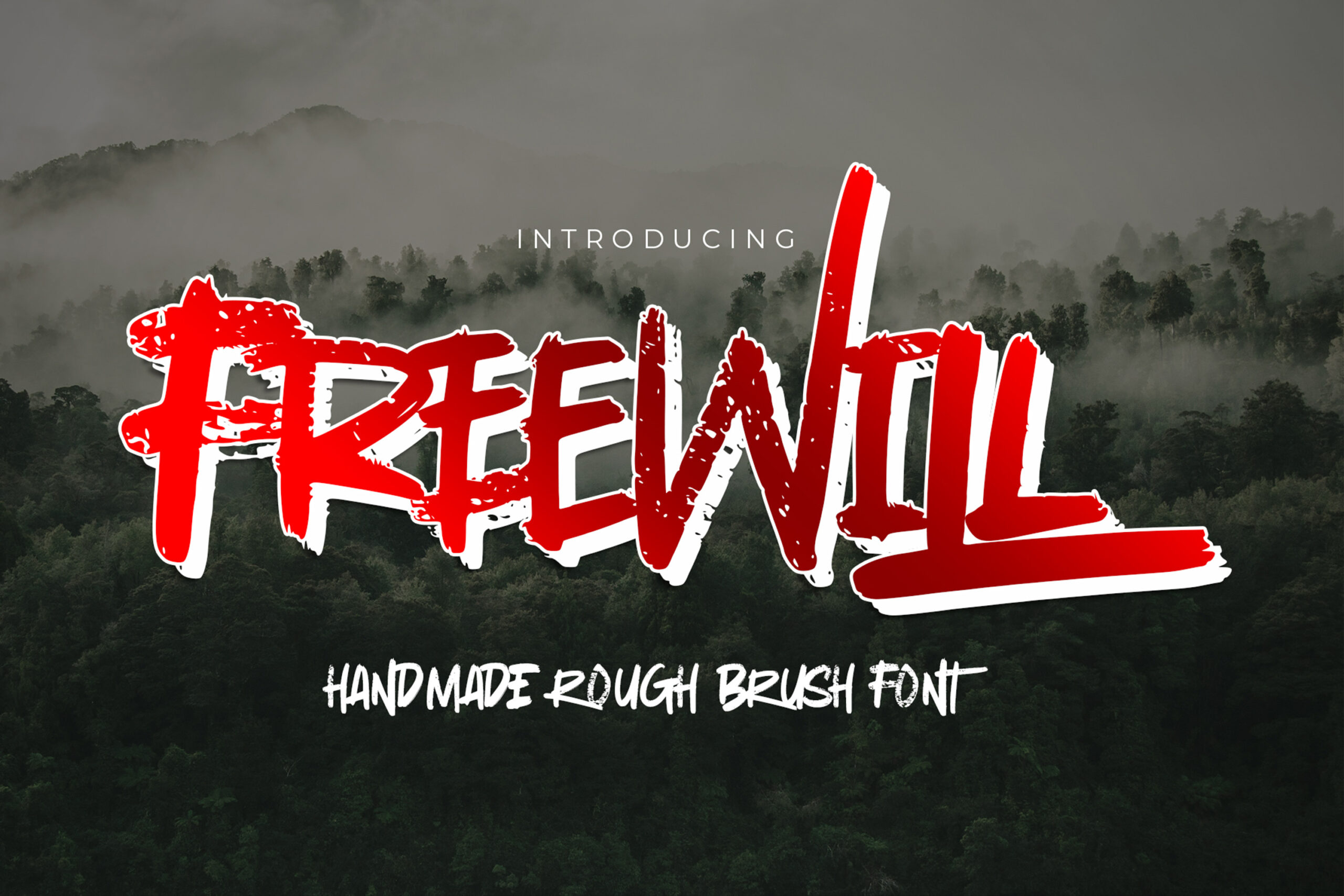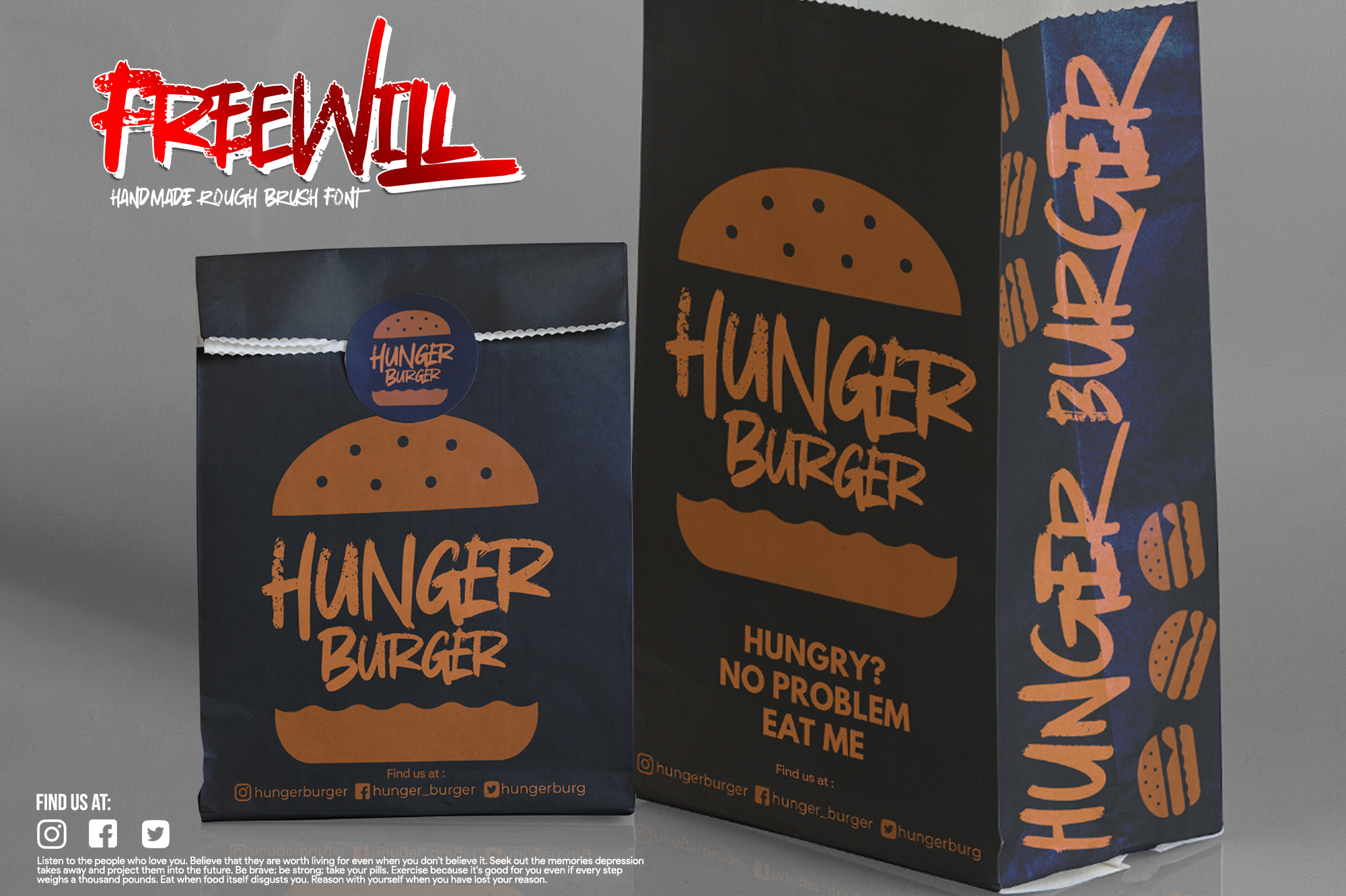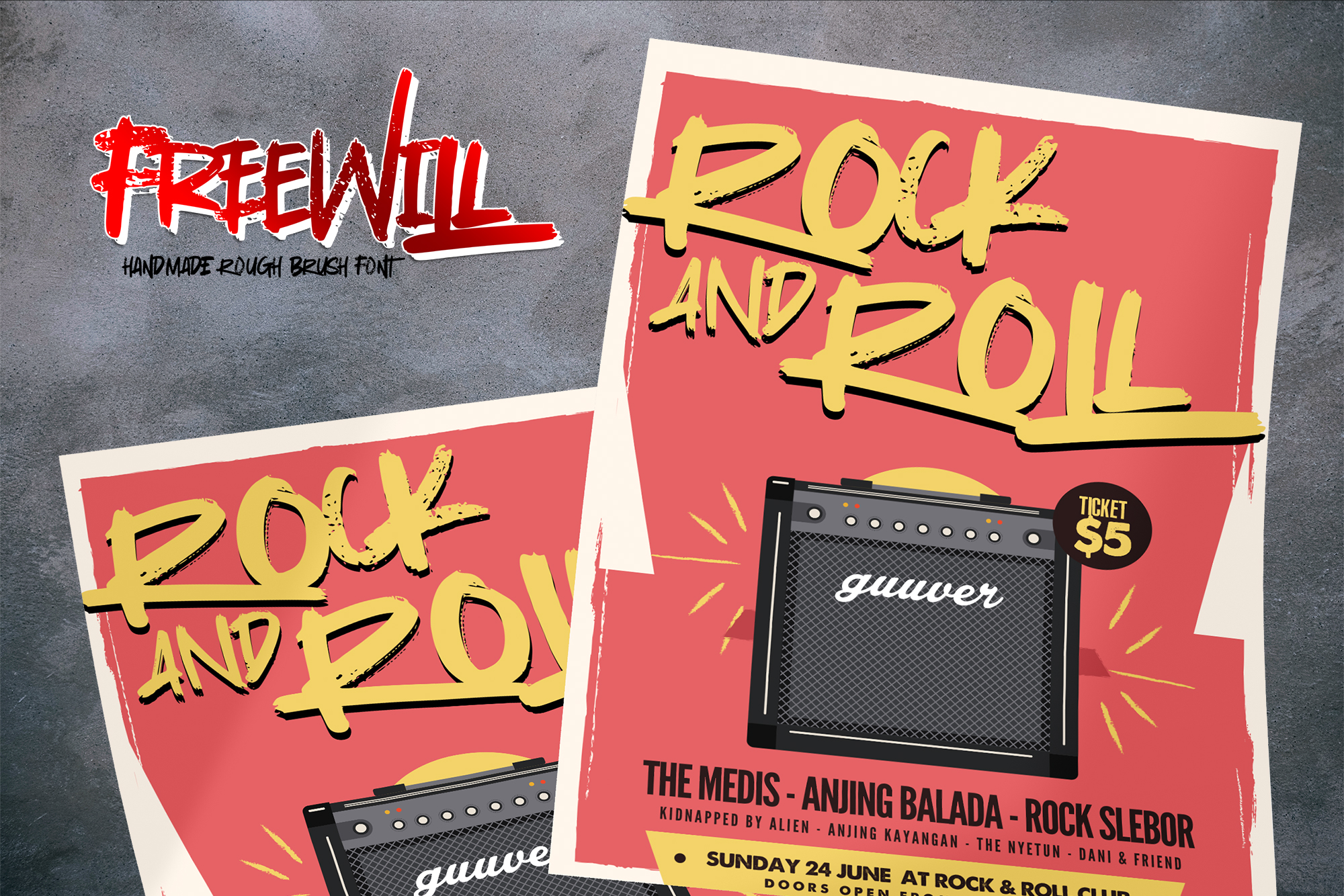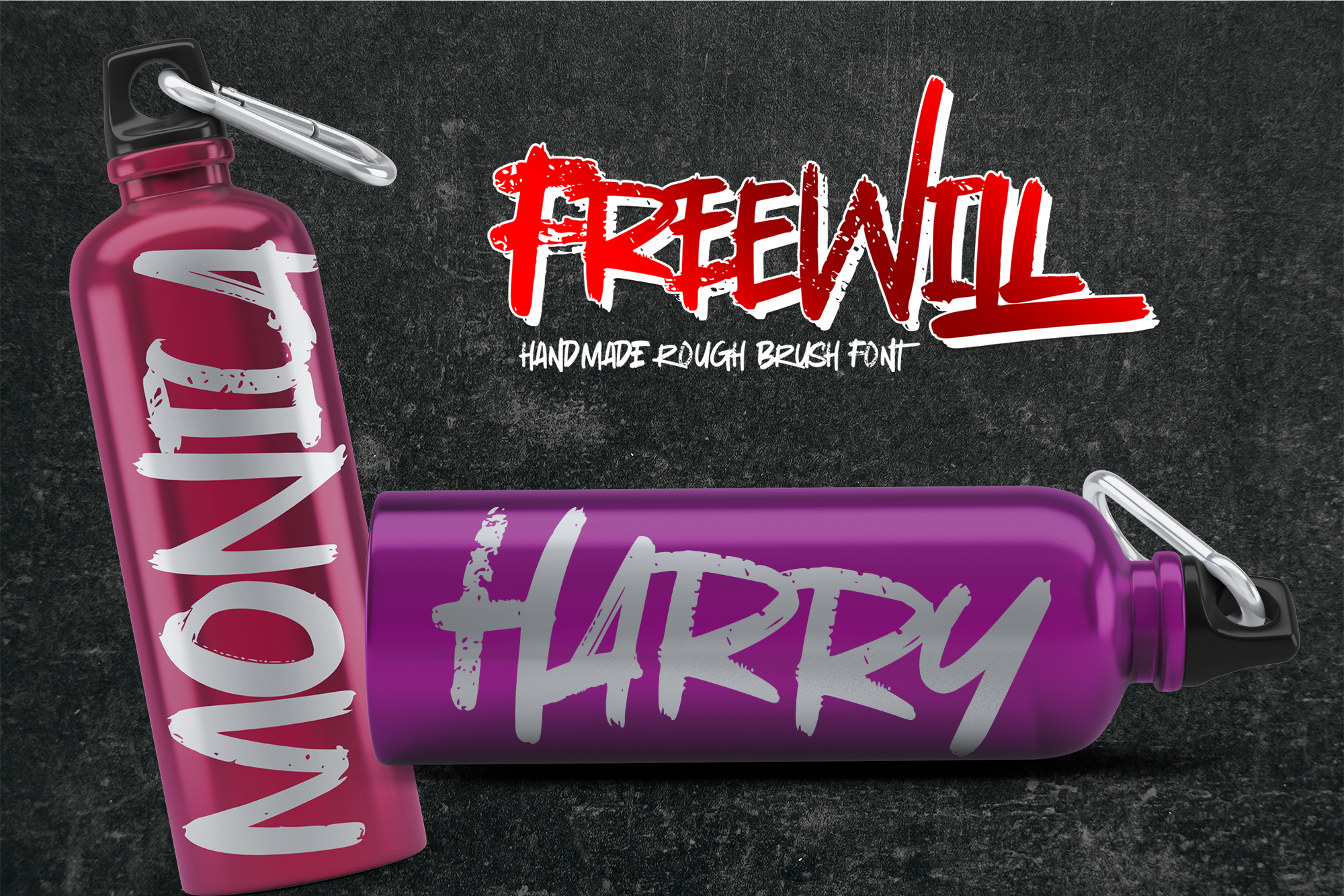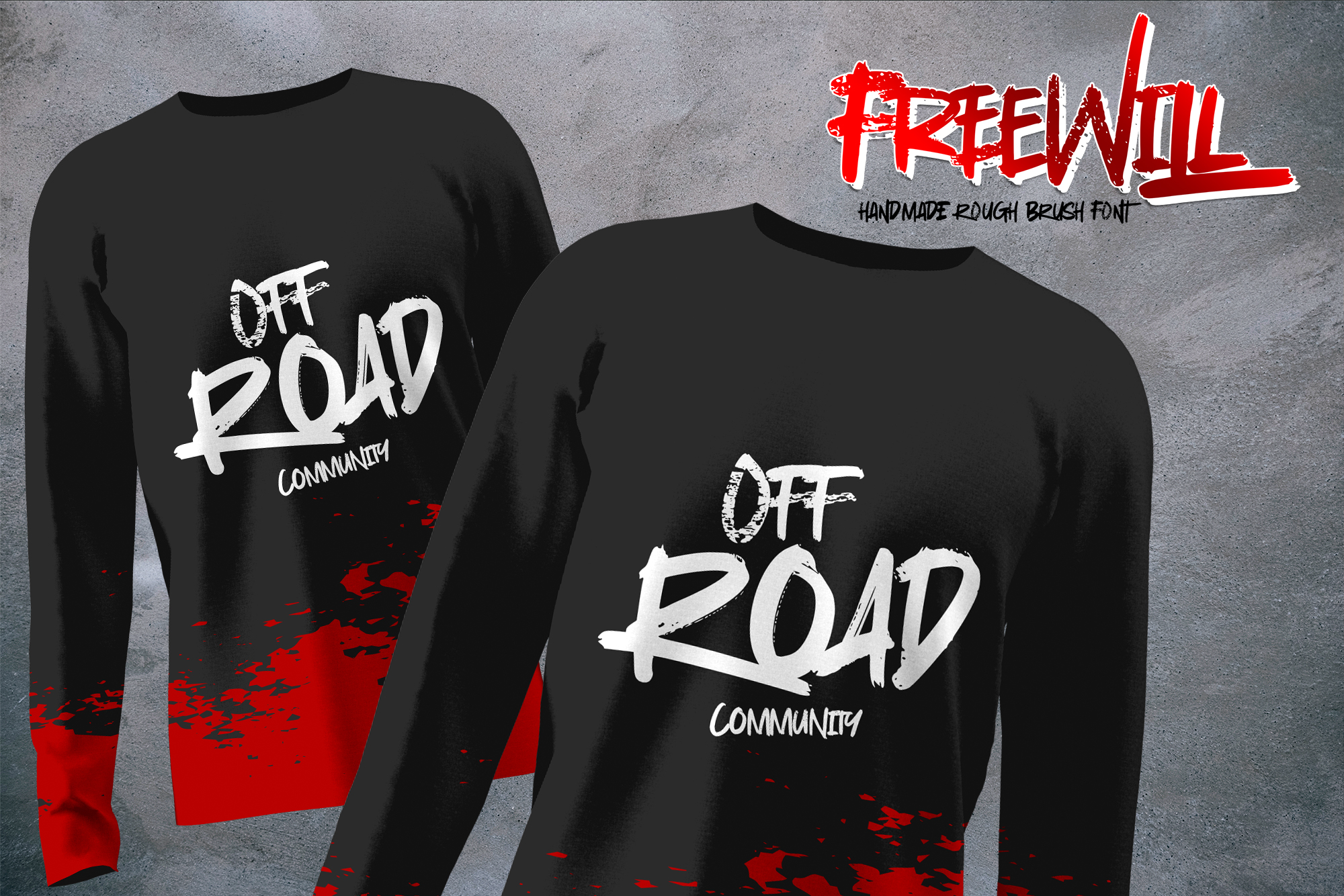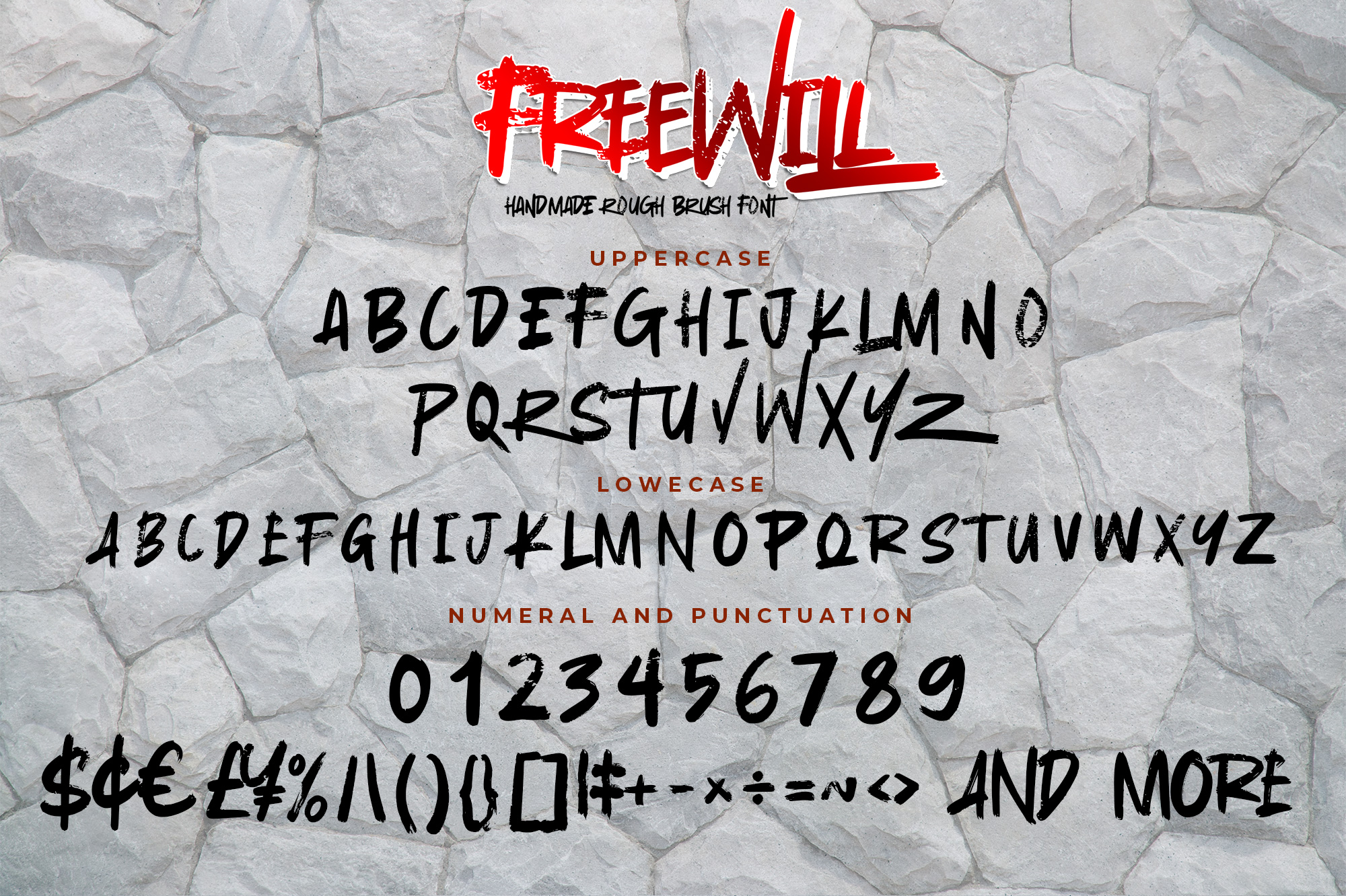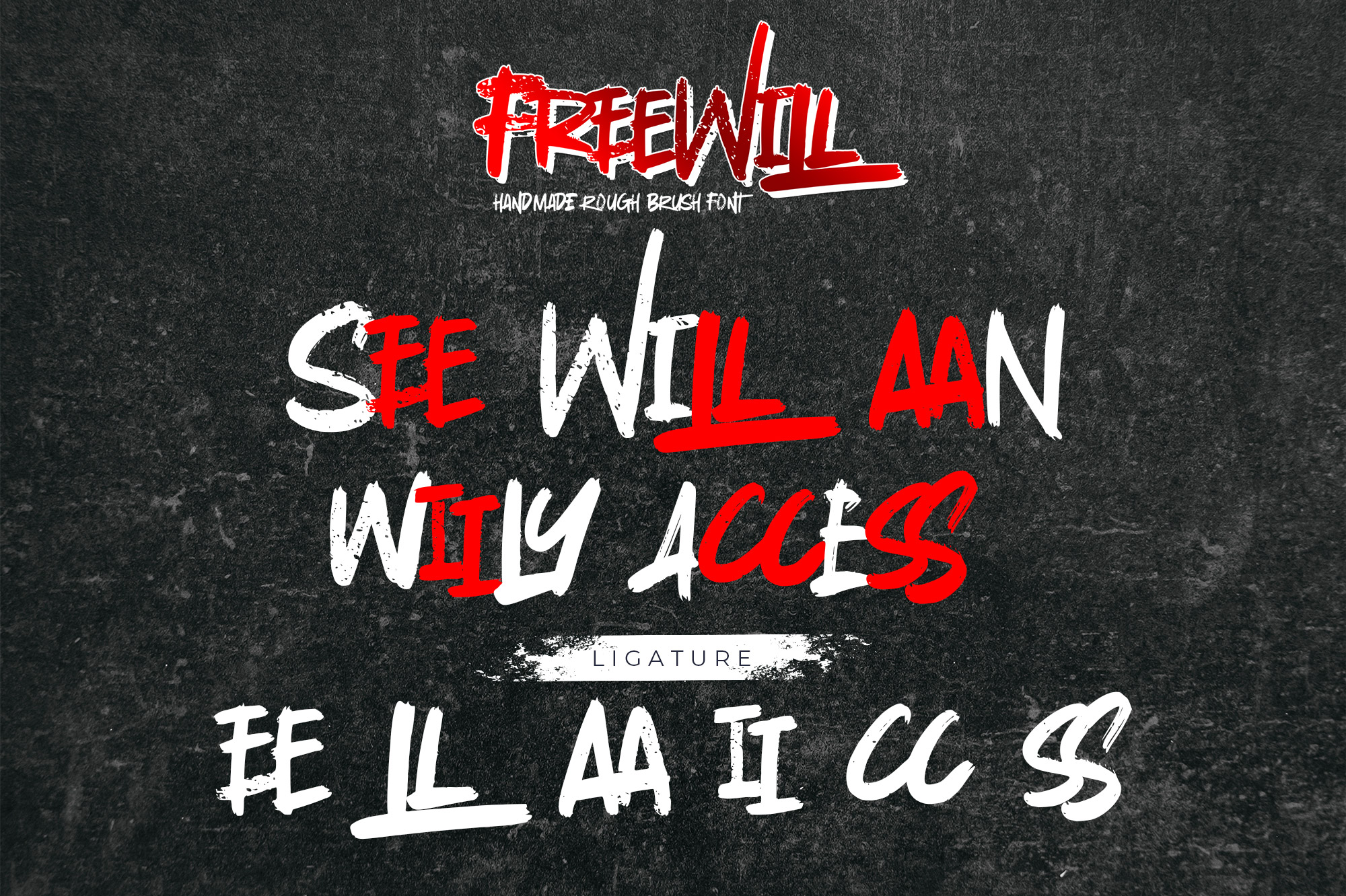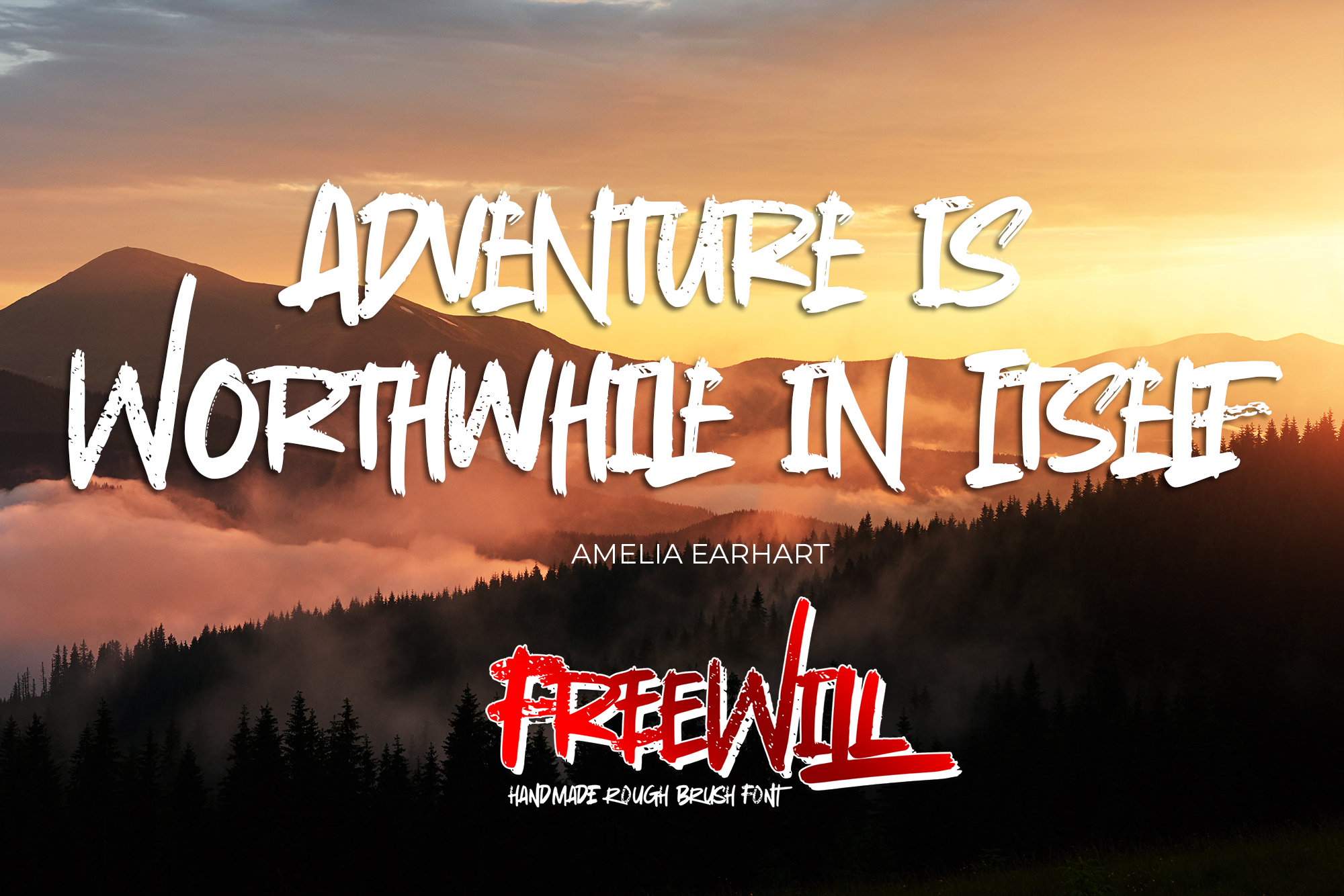
FREEWILL – Handmade Rough Brush Font, authentic style and dramatic movement that is written casually and quickly.
The best for poster,project , designs look modern, unique and fun. It’s perfect for labels, quotes, posters, DIY projects, branding, packaging, greeting cards, websites, photography overlays, signs, scrapbooking, tags and so much more! That is why FREEWILL has a rough, and unique characteristic more natural look. You can activate Ligatures and Alternates glyphs OpenType panel.